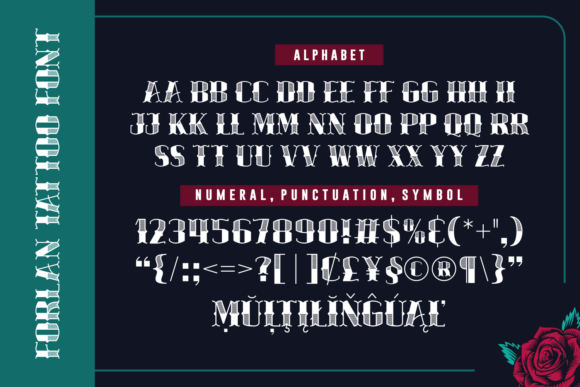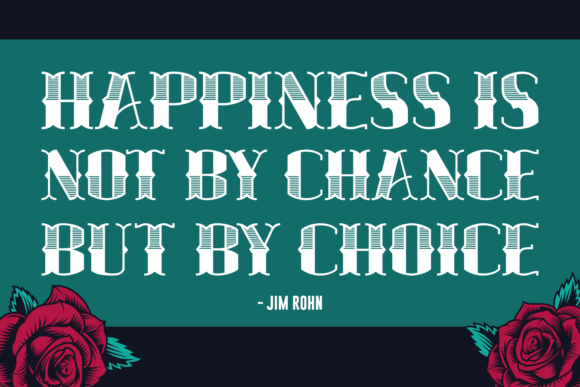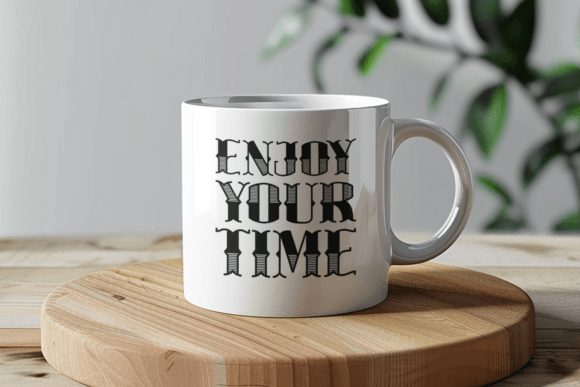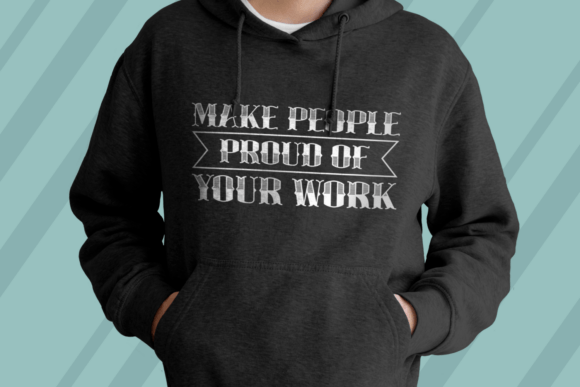
The Timeless Appeal of Forlan Tattoo Font
I’ll never forget the struggle I faced while working on a tattoo design project for a client who wanted a classic, old-school look. I had to find the perfect font to complement the intricate details and bold lines of the design. After hours of searching, I stumbled upon the Forlan Tattoo font, and it was love at first sight! ✨ The bold, decorative style and sharp angles instantly caught my attention, and I knew I had found the perfect fit.
A Personal Review of Forlan Tattoo Font
- ✅ Bold and Decorative Style: Forlan Tattoo font boasts a bold, eye-catching design that’s perfect for tattoos and other artistic projects.
- ✨ Intricate Details: The font features intricate details and sharp angles that add a touch of elegance and sophistication to any design.
- 🔥 Timeless Appeal: The classic look of Forlan Tattoo font ensures that your designs will never go out of style.
While Forlan Tattoo font is an excellent choice for many projects, there are a few quirks to be aware of: 🤔
- ⚠️ Limited Versatility: Due to its bold and decorative nature, Forlan Tattoo font may not be suitable for projects that require a more subtle or elegant look.
- ⚠️ Glyph Limitations: Some users have reported that the font could benefit from a wider range of glyphs and special characters.
Forlan Tattoo font was inspired by the classic tattoo art of the early 20th century. The font’s designer, who wishes to remain anonymous, was fascinated by the bold and decorative style of old-school tattoos and sought to create a font that would capture the essence of this timeless art form.
| What type of projects is Forlan Tattoo font best suited for? | Forlan Tattoo font is perfect for tattoo designs, artistic projects, and any other creative endeavors that require a bold and decorative style. |
| Is Forlan Tattoo font available in different weights and styles? | Currently, Forlan Tattoo font is available in a single weight and style. However, some font foundries may offer variations or expansions of the font in the future. |